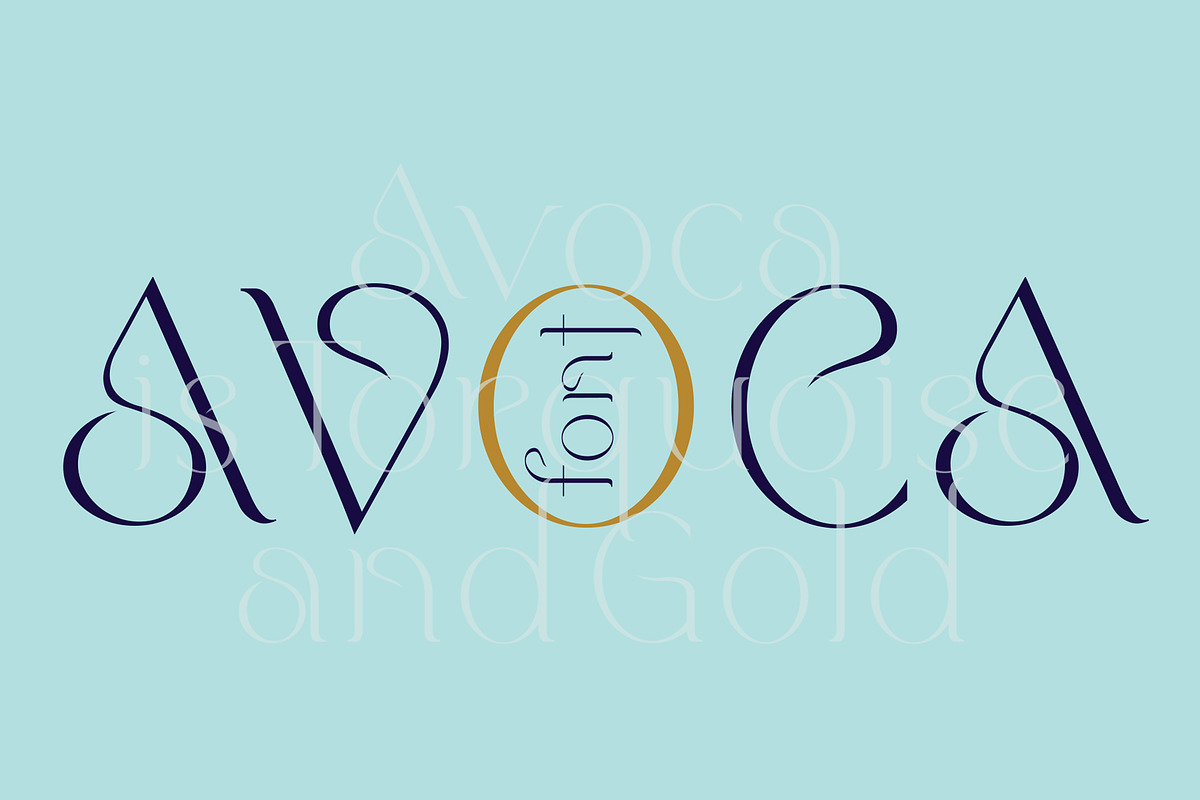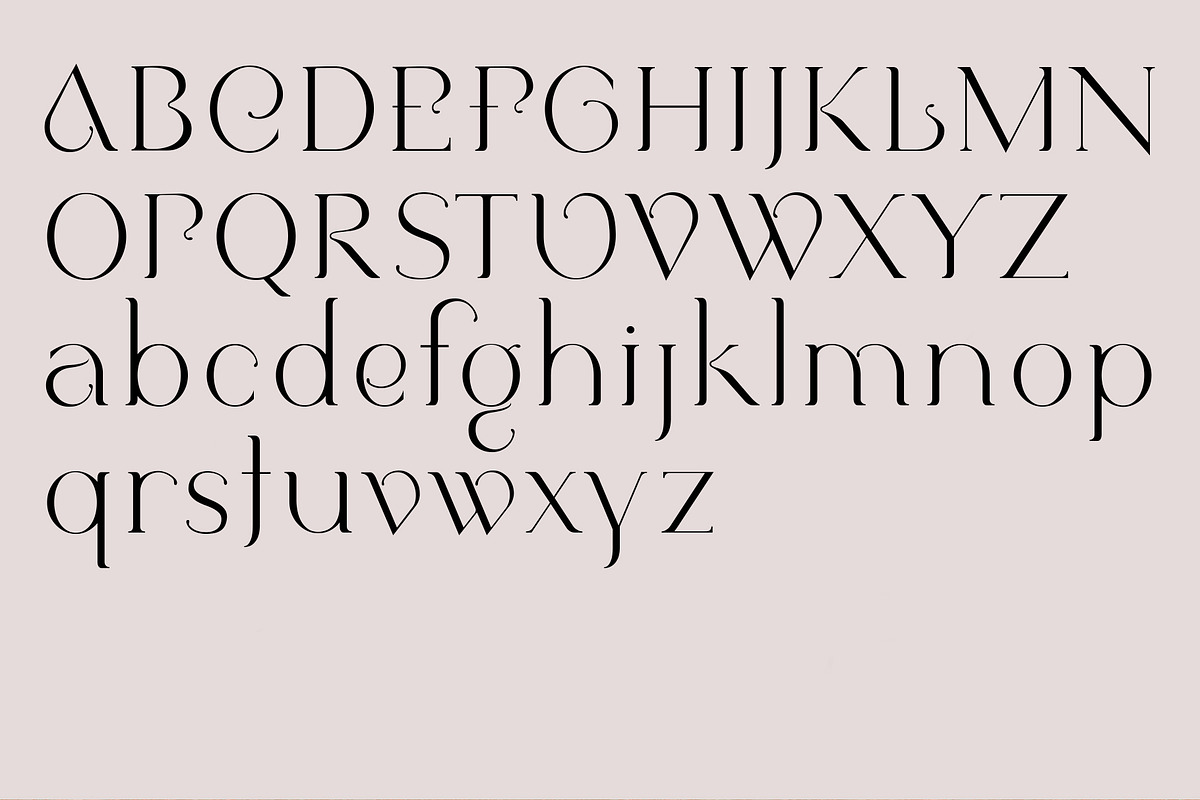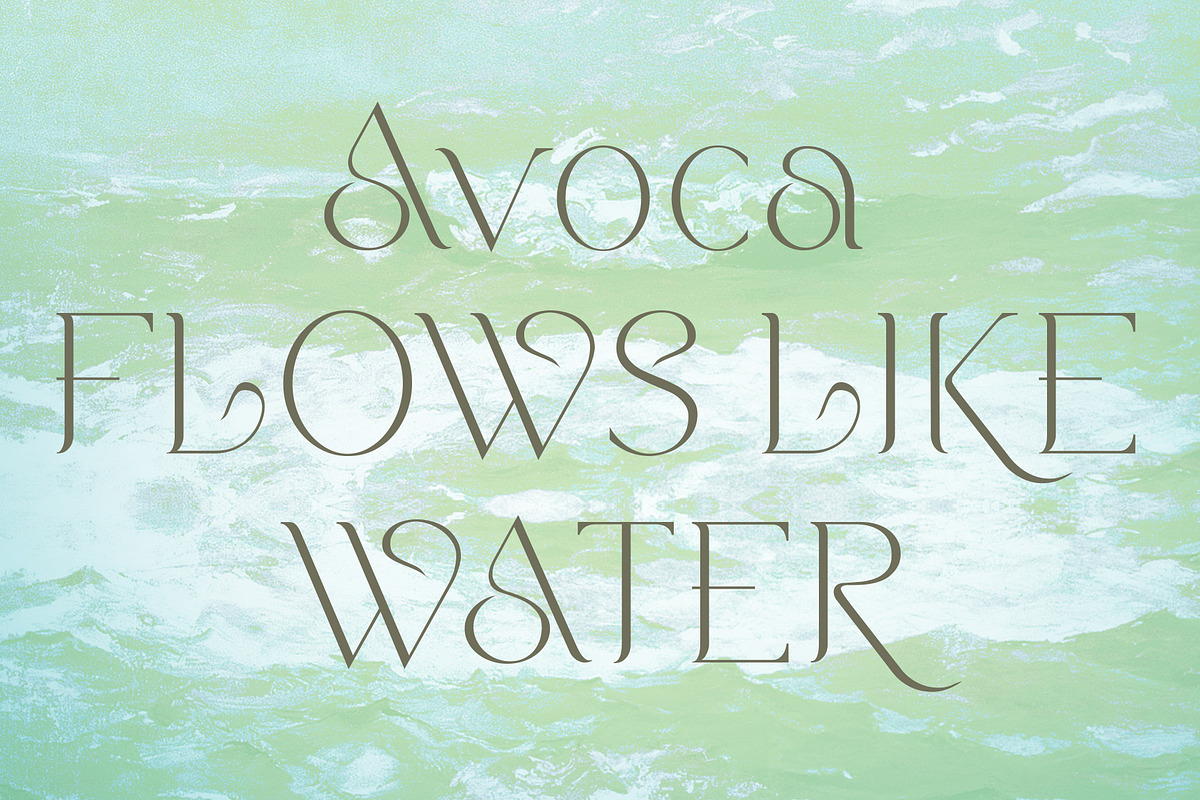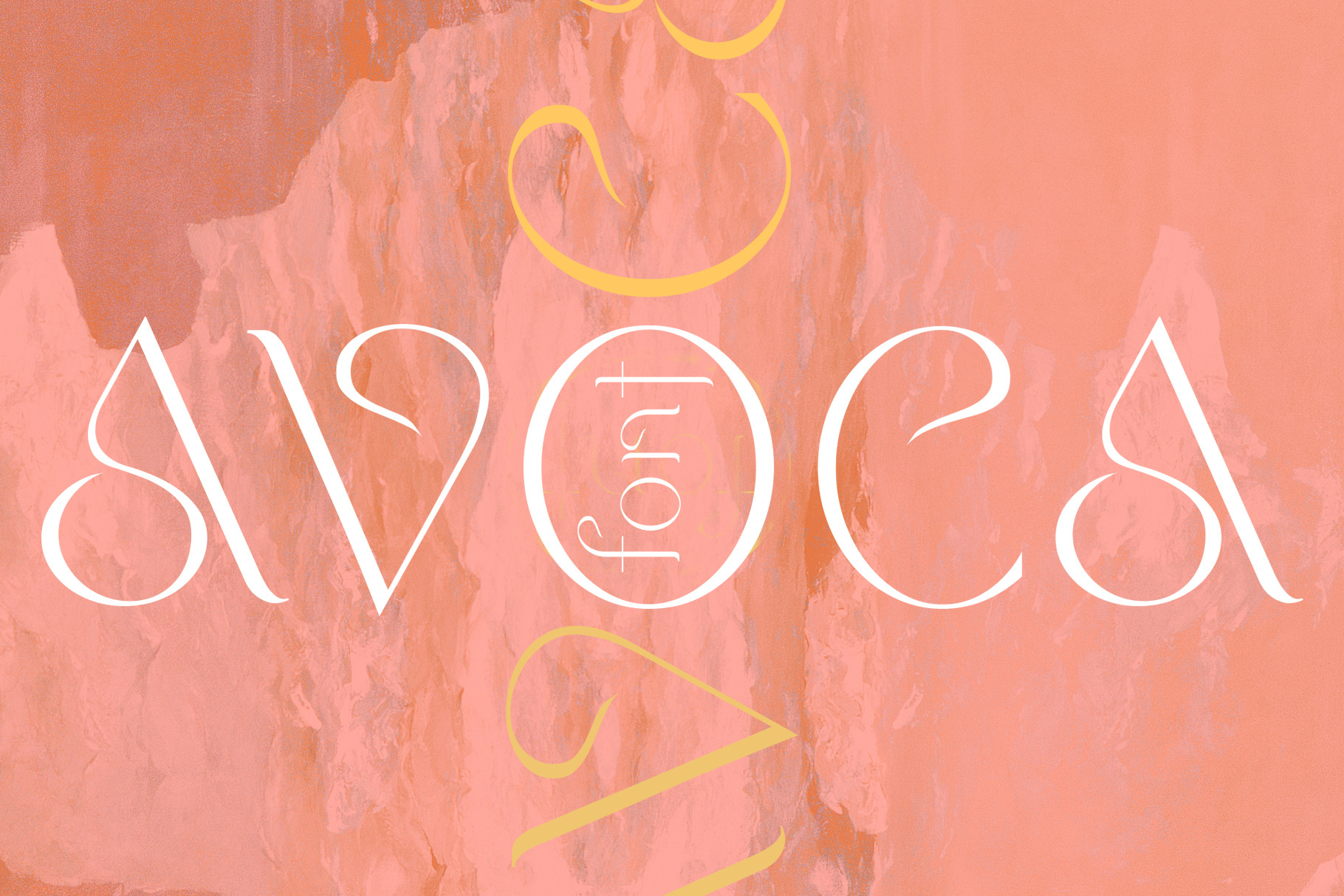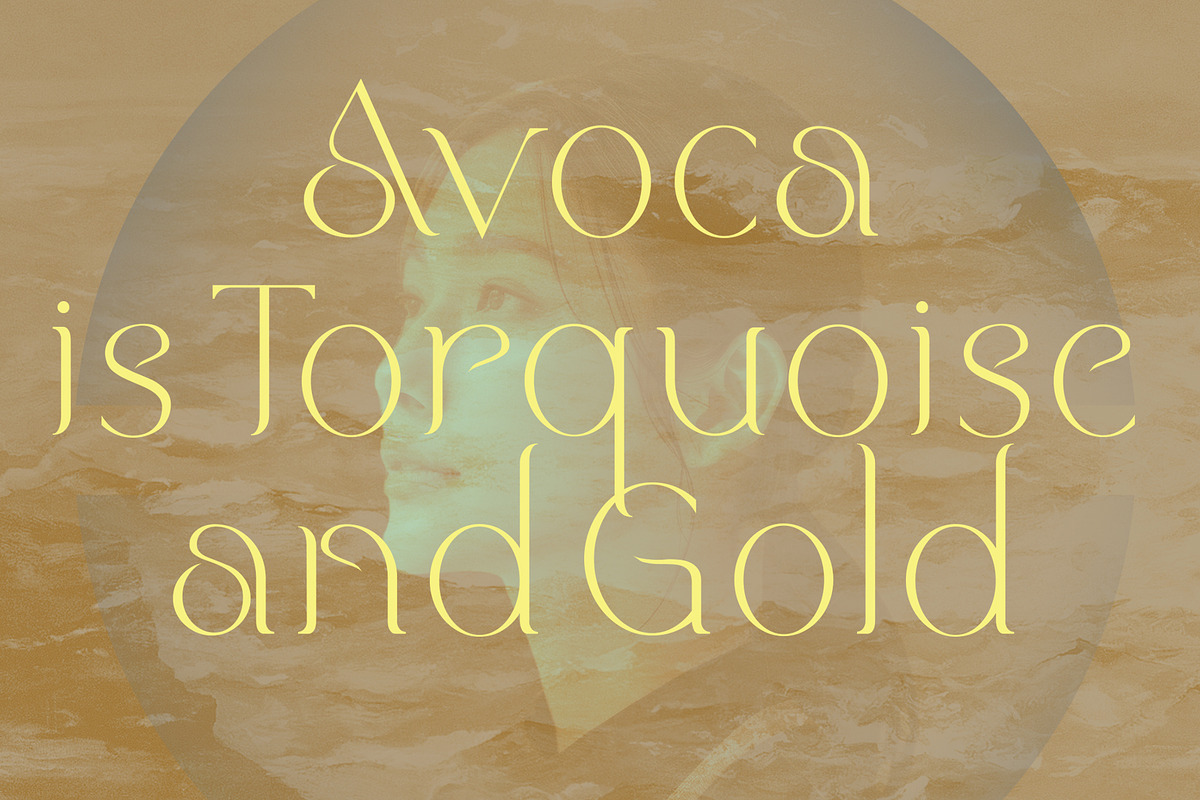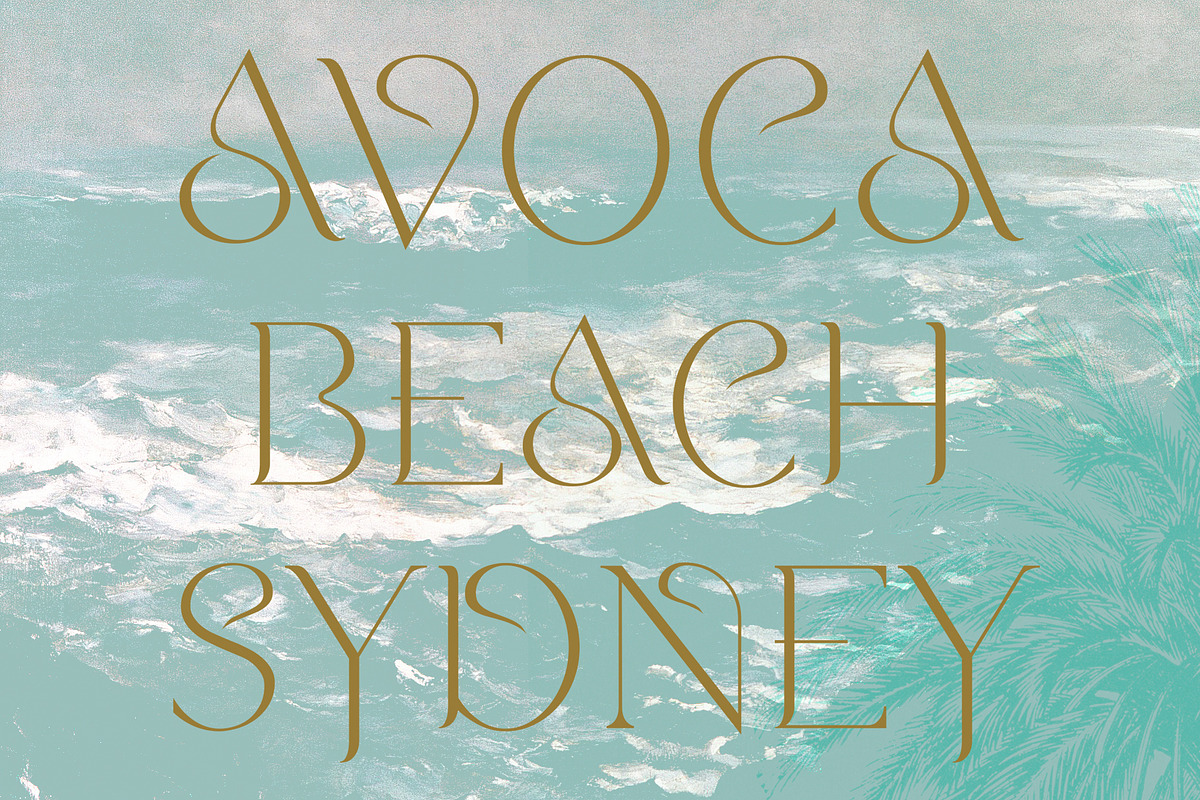
Avoca. Stunning Social Media font
Avoca is named after the beach of the same name in my hometown, Sydney. Growing up there I spent more time that I maybe should have at the beach so I assigned myself the task of creating a font that embraced a flowing fluidity, inspired by the curls of those waves and the beautiful sea.
When we think of fonts that draw design notes from the beach we inevitably only see either scripts that all look the same, or retro ‘surf styles’. As a designer I pride myself on creating fonts that are not a cliche of a theme. But rather have a more intellectual design nod to the inspiration. And I thought why not design a classic serif font with a contemporary feel, yet still have my concept within it.
The result is Avoca.
A chic, stylish, yet modern font, versatile enough for many different types of print design projects. As well as online on social media posts, Youtube creator titles, websites, and blogs. Avoca gives your work a unique identity and character and is a must-have addition to your serif font catalogue. This stunning font comes in 2 weights and supports many European languages.